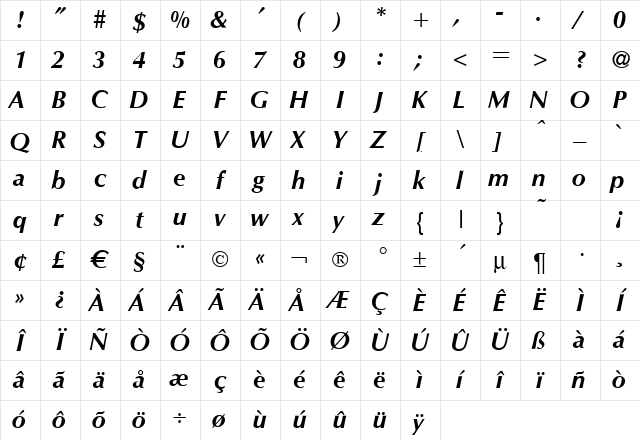
O801-Flare BoldItalic
Design Context for O801-Flare
O801-Flare is a composed and adaptable typeface that performs quietly and consistently across a wide range of design contexts. The slanted form adds forward momentum and visual energy. Its bold stroke weight gives it real presence on the page.